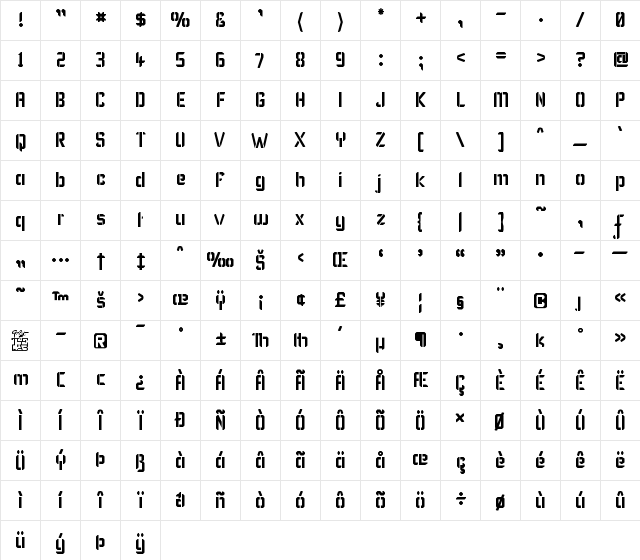
Karisma Stencil Regular
Design Context for Karisma Stencil Typeface
Karisma Stencil borrows the utilitarian aesthetic of stencil lettering, with its characteristic cutaways and no-frills construction lending an industrial edge.
A strong choice for packaging that needs edge, warehouse aesthetics, and rough-and-ready visual identities.
Pro Tip: Use Karisma Stencil at large sizes on packaging, posters, or apparel where the stencil cutaways read clearly. Avoid small sizes where those gaps become visual noise.